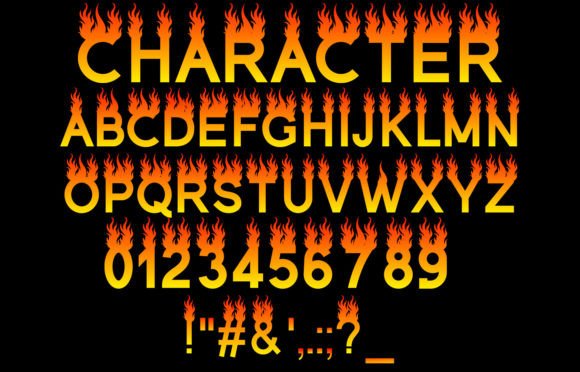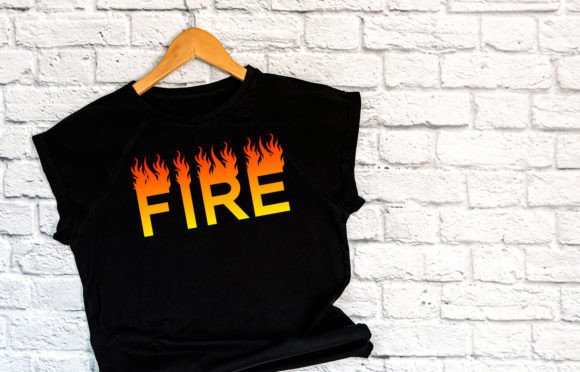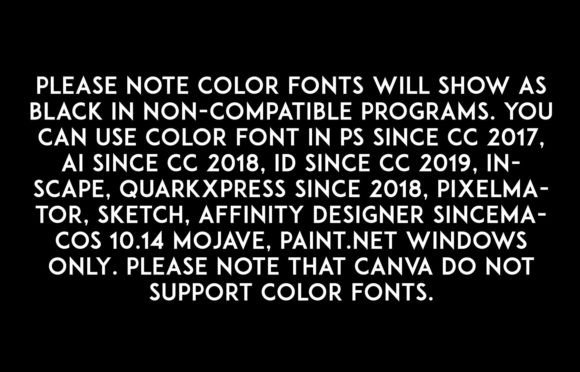
The Spark You Need: Discovering Fire Flames Font
I still remember the last time I was working on a project and felt like something was missing. I had the perfect design concept, the colors were on point, and the layout was flawless. But, as I was about to hit publish, I realized that the font I was using just wasn’t doing it for me. It was then that I stumbled upon Fire Flames Font, and let me tell you, it was love at first sight! 💫
An Honest Review of Fire Flames Font
Fire Flames Font is a beautiful, color font that has quickly become a staple in my design toolkit. Here’s what I love about it:
- ✨ Unique and stylish design that adds a touch of class to any project
- ✅ Perfect for invitations, flyers, and other design work where you want to make a statement
- 🔥 Amazing color options that can be easily customized to fit your brand’s style
While Fire Flames Font is an amazing addition to any design project, there are a few quirks to be aware of:
- 🤔 Some users may find the font a bit tricky to work with, especially if they’re new to using OpenType features and glyphs
- ⚠️ The font may not be suitable for body text or long-form content, as it’s best used for headlines and titles
The Backstory Behind Fire Flames Font
Fire Flames Font was designed by a team of creative typographers who wanted to create a font that would add a touch of warmth and energy to any design project. Inspired by the beauty of fire and flames, the font features intricate details and bold lines that are sure to make your designs stand out.
| What type of projects is Fire Flames Font best suited for? | Fire Flames Font is perfect for designs that require a bold and eye-catching font, such as invitations, flyers, and other promotional materials. |
| Is Fire Flames Font easy to read? | Fire Flames Font is best used for headlines and titles, as it may not be suitable for body text or long-form content. |
| Can I customize the colors of Fire Flames Font? | Yes, Fire Flames Font features a range of color options that can be easily customized to fit your brand’s style. |